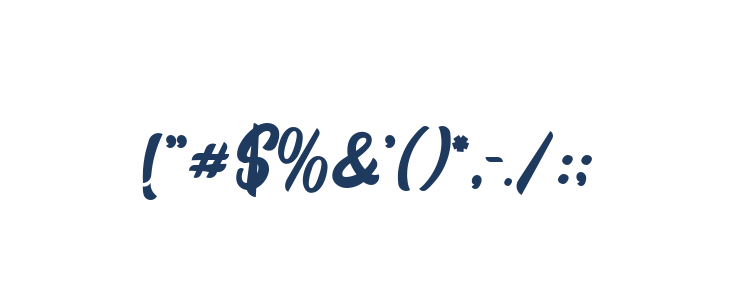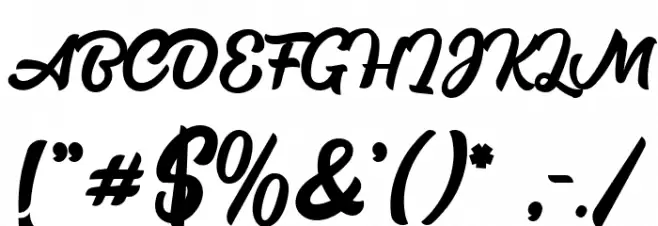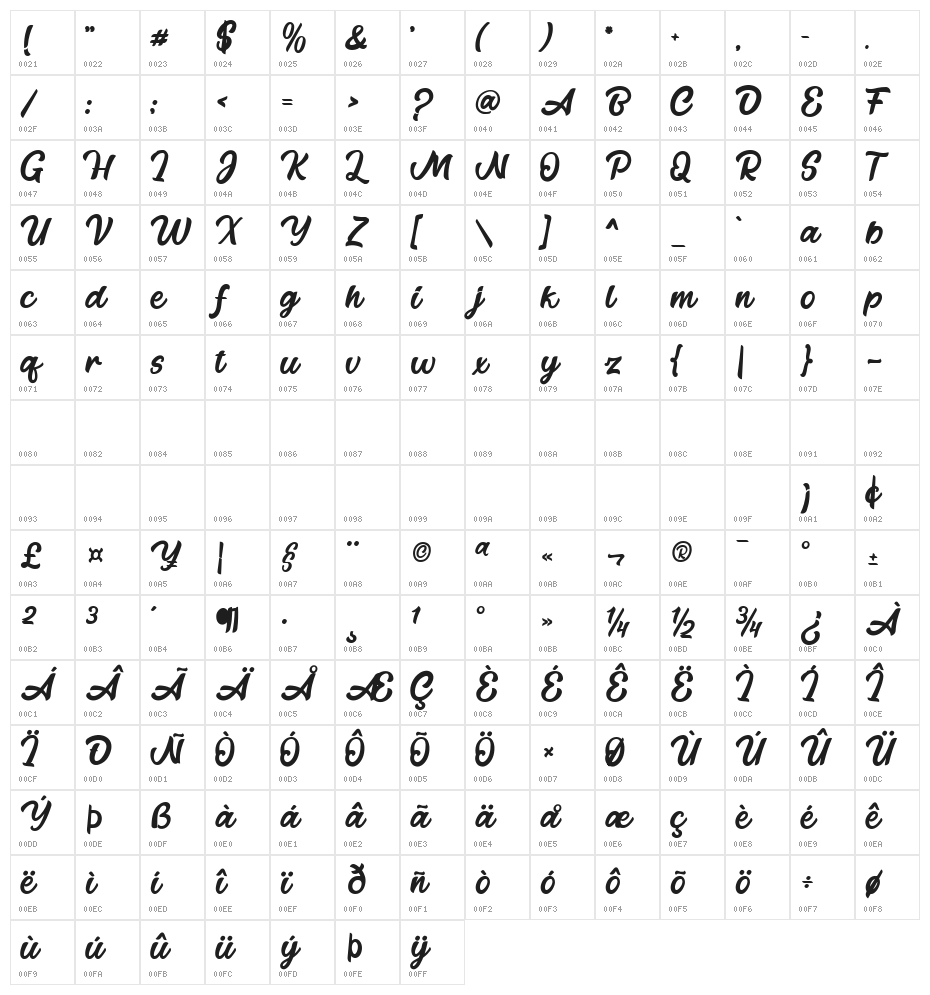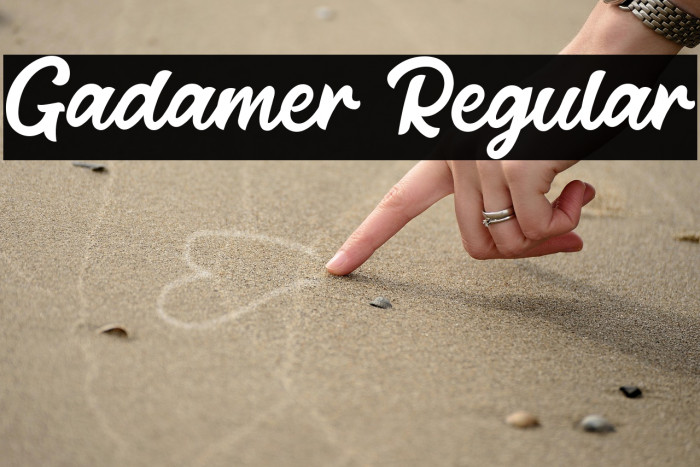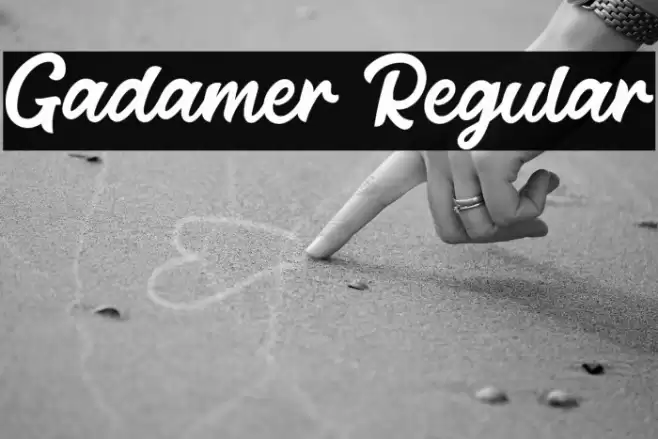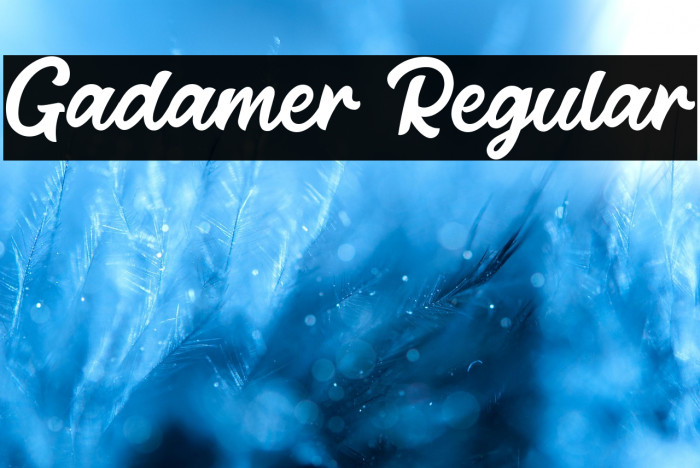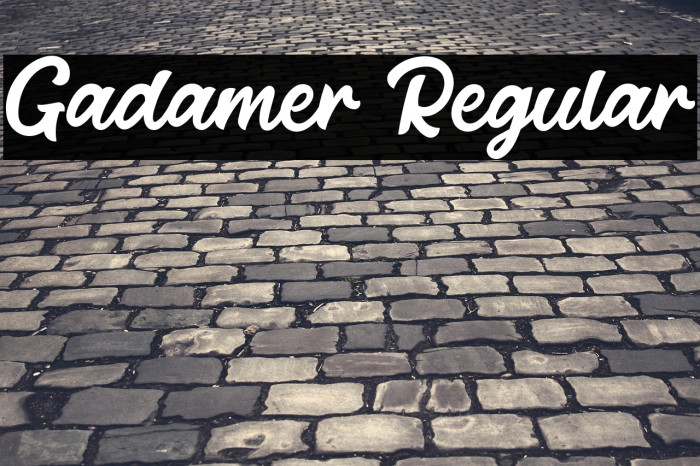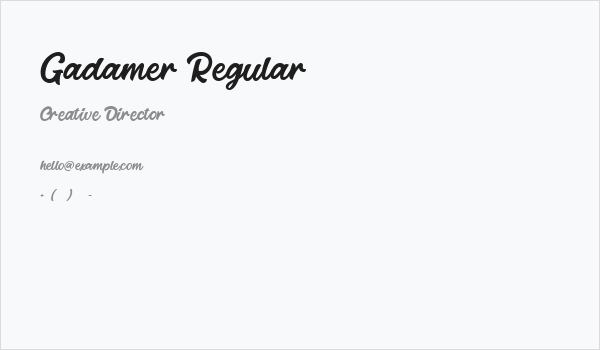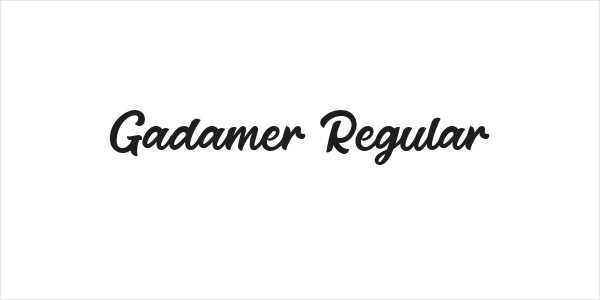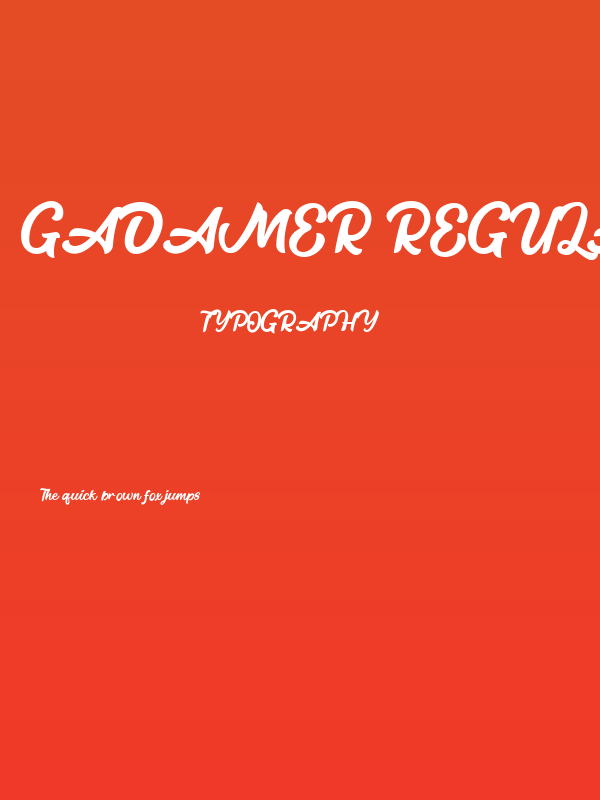
Gadamer Regular Font
Gadamer Regular Description
This font exhibits a bold and expressive script style with a flowing, cursive design. The characters are interconnected, creating a seamless and dynamic appearance. The uppercase letters are slightly more ornate, with elegant loops and curves, while the lowercase letters maintain a consistent rhythm and fluidity. The numbers and special characters are crafted to match the overall aesthetic, ensuring a cohesive look across all text elements. This font's bold strokes and artistic flair make it suitable for creative and impactful designs.
| Proposed Projects | Ideal for branding, invitations, greeting cards, and artistic projects requiring a personal touch. |